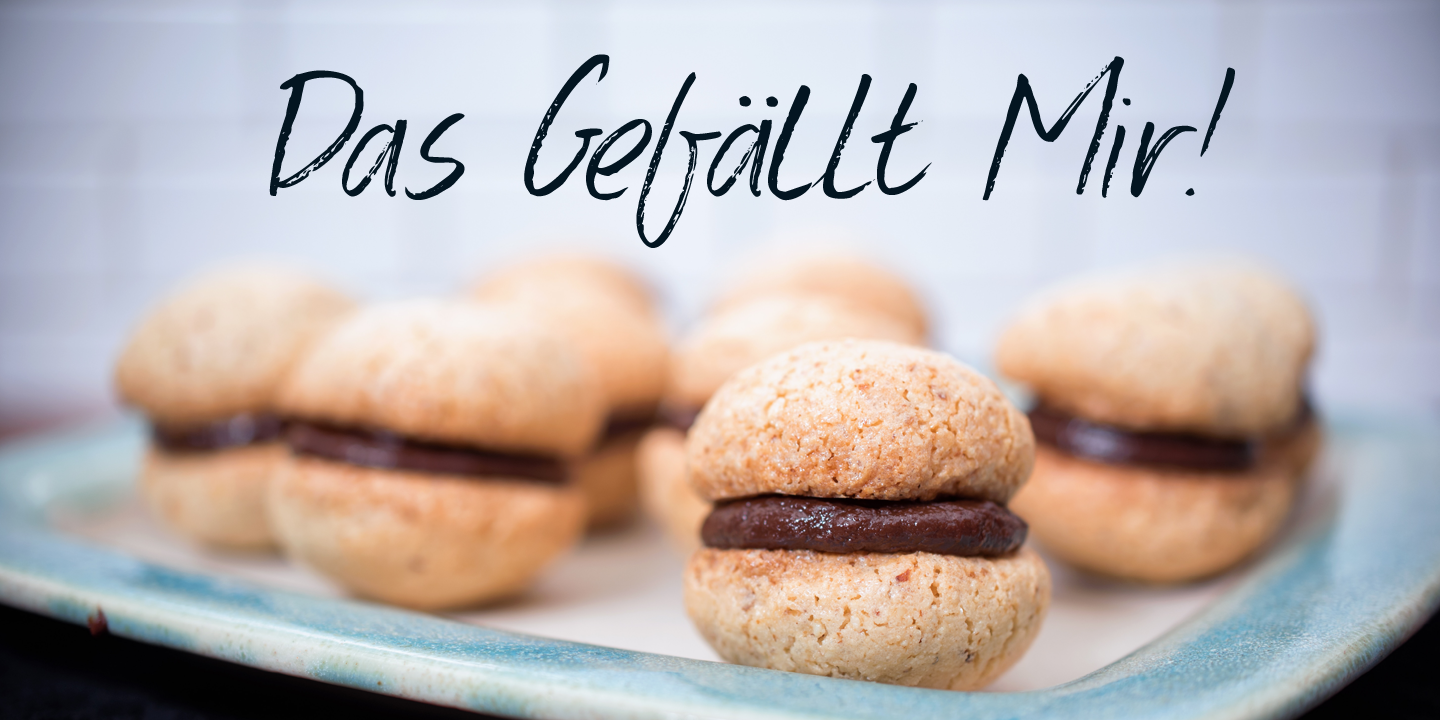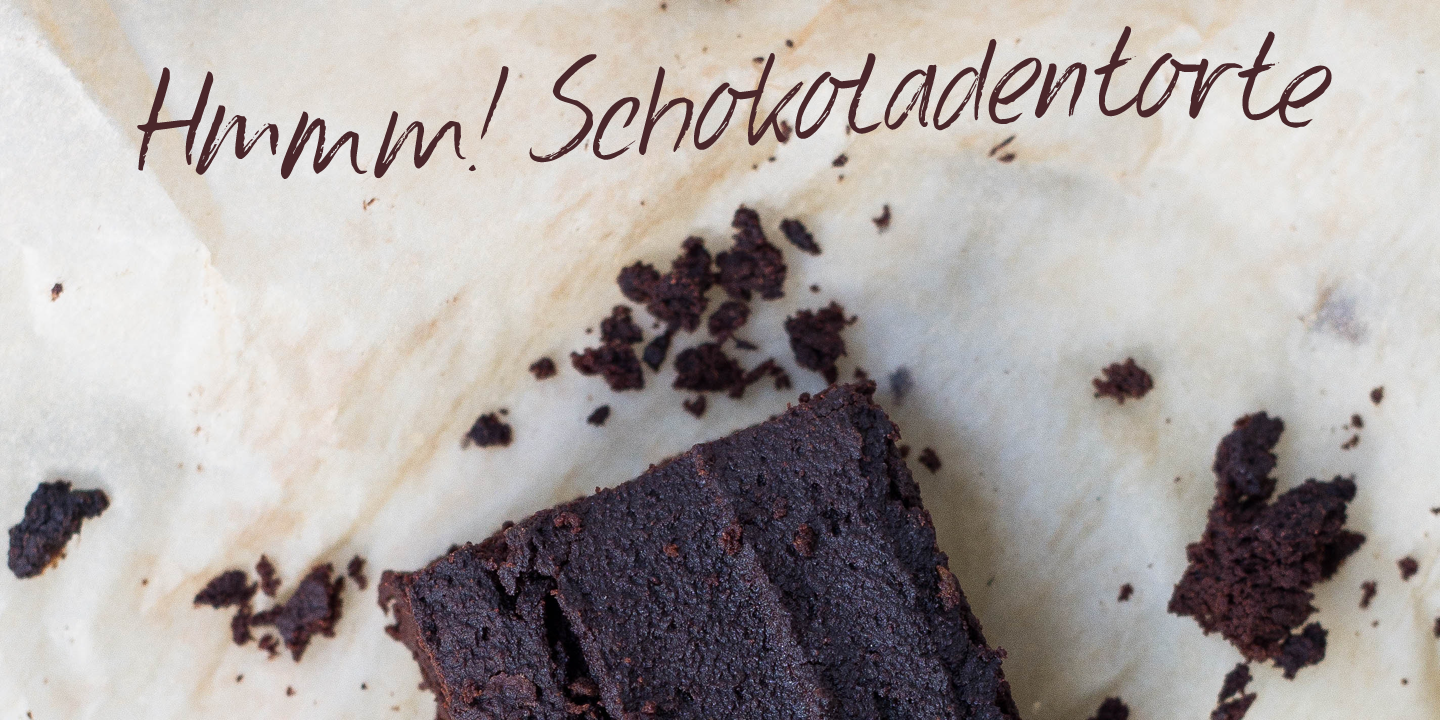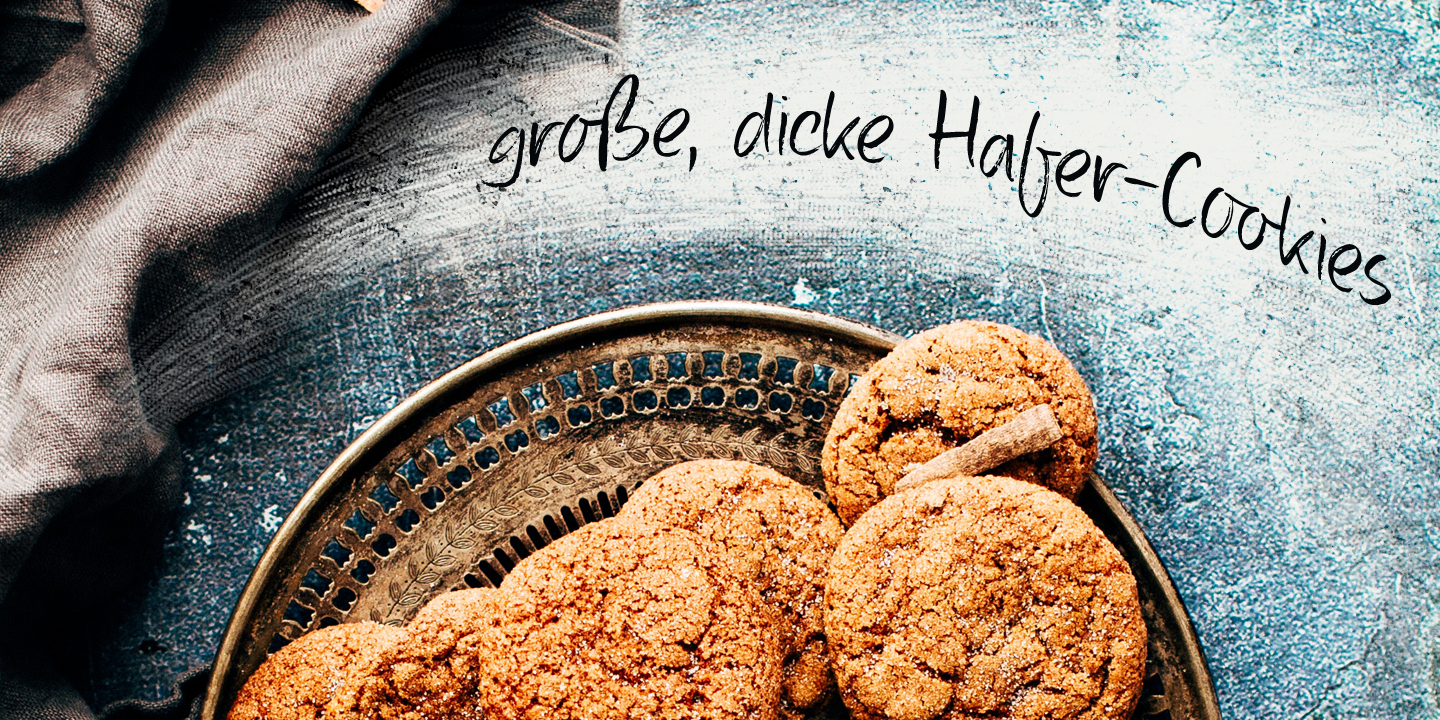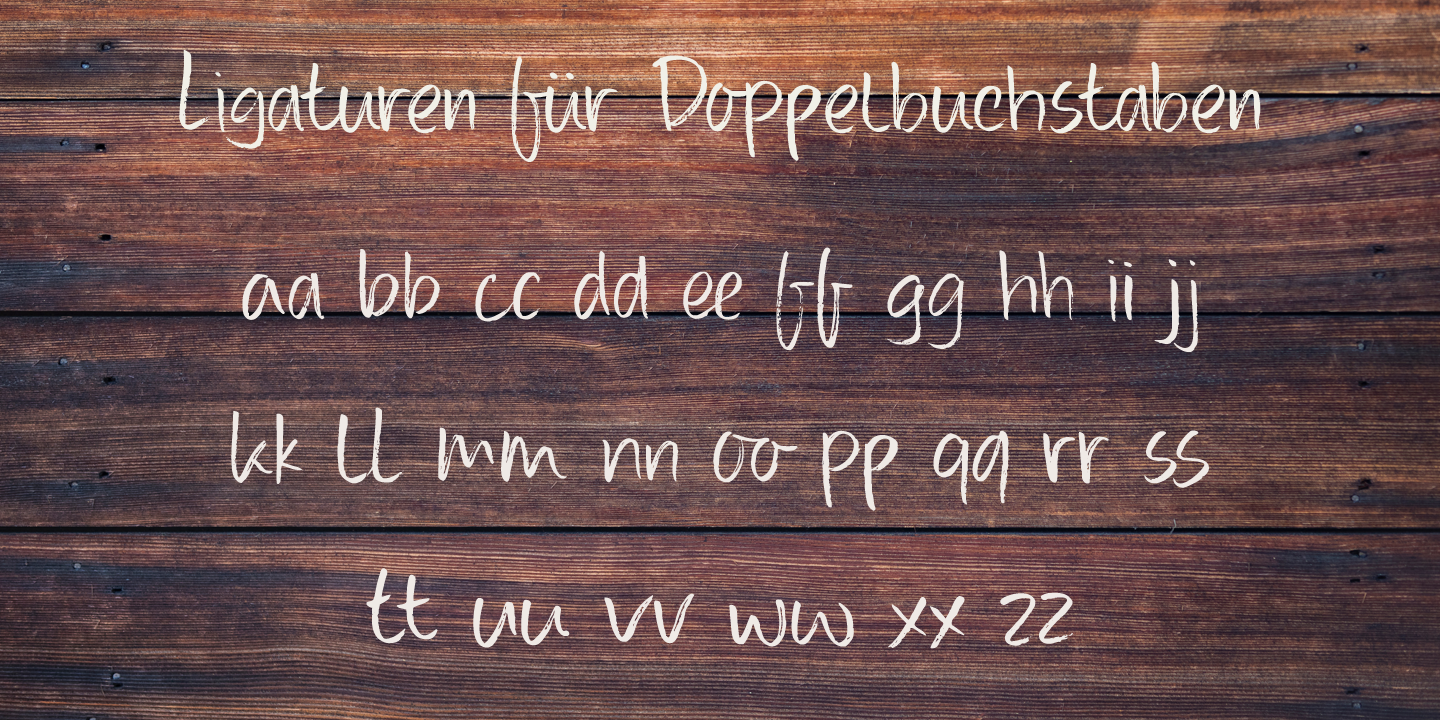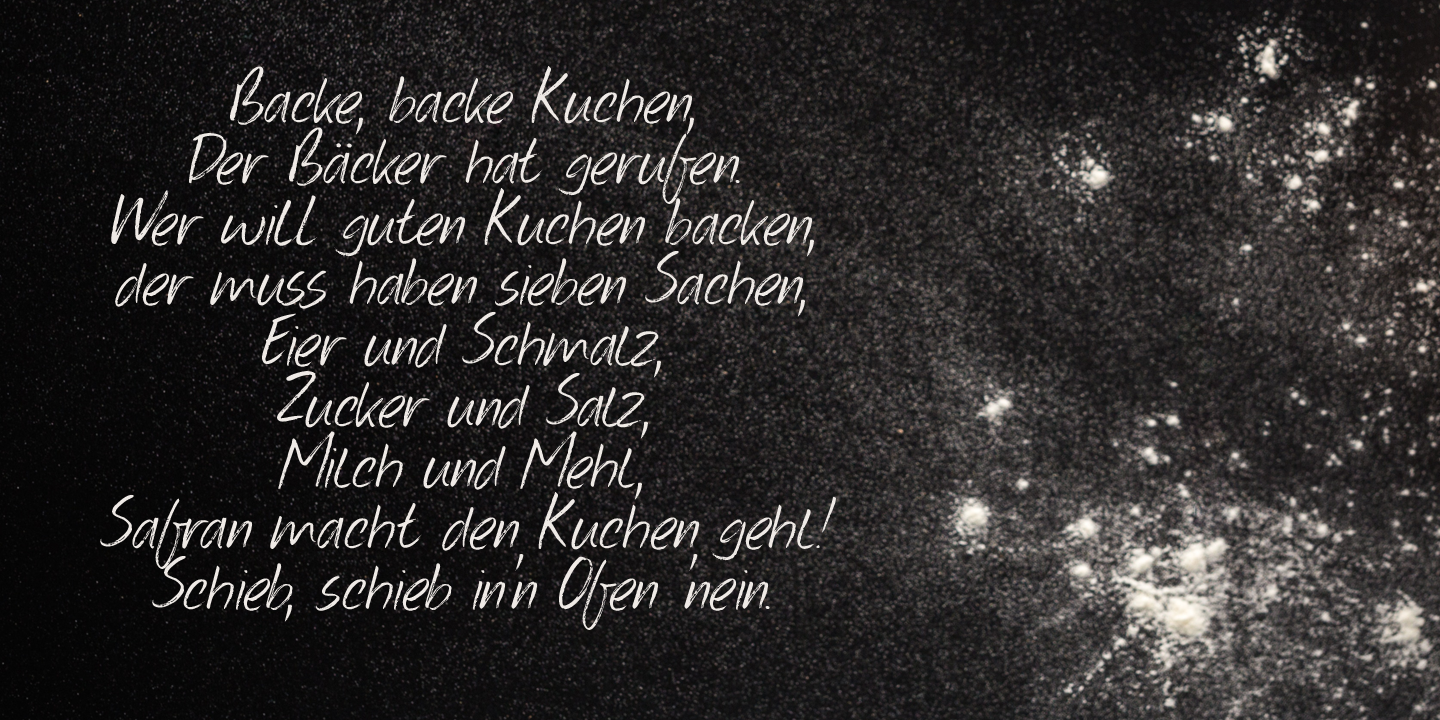
Konditorei Family (2 fonts)
Use it for your food blogs, your magazines and product packaging. Comes with heaps of diacritics and ligatures for double letters.